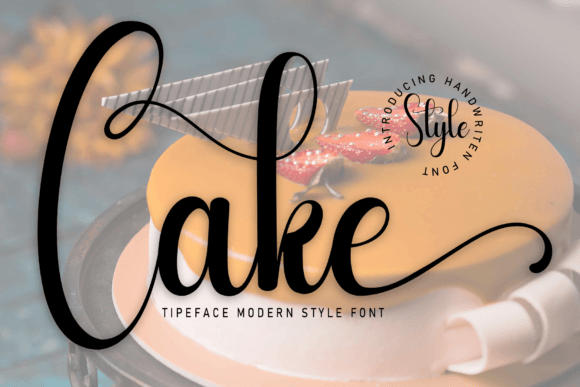
Introducing Cake Font, the perfect script font to add a touch of sweetness and charm to your designs! Created by the talented William Jhordy, this font is a delightful choice for anyone looking to elevate their projects with a handwritten feel.
With its fresh and neat appearance, Cake Font brings a unique and friendly vibe to your creative endeavors. Whether you're designing wedding invitations, greeting cards, or simply want to add a fun touch to any project, this font has got you covered.
Capture the spirit of joy and celebration with Cake Font, the best font for Christmas words! Its playful curves and elegant strokes make it an ideal choice for capturing the essence of the holiday season. Spread the festive cheer with beautifully designed Christmas cards, gift tags, or personalized messages using this exquisite font.
Cake Font is more than just a font; it's an experience. Its enticing and captivating style is sure to resonate with users looking for that special something to make their designs stand out. Let your creativity soar as you explore the endless possibilities this font offers, allowing you to infuse your projects with a delightful touch of personality.
Not only will Cake Font enhance the visual appeal of your designs, but it will also evoke a range of positive emotions. Its handwritten charm adds a sense of warmth, friendliness, and approachability to any text. Whether it's a heartfelt message or a playful caption, this font will effortlessly convey your desired emotions to your audience.
Indulge in the irresistible allure of Cake Font and let it become your go-to choice for all your design needs. Experience the magic of this script font and witness your projects come alive with its captivating presence. Don't settle for ordinary when you can have extraordinary. Elevate your designs with Cake Font – the sweetest choice you'll ever make!